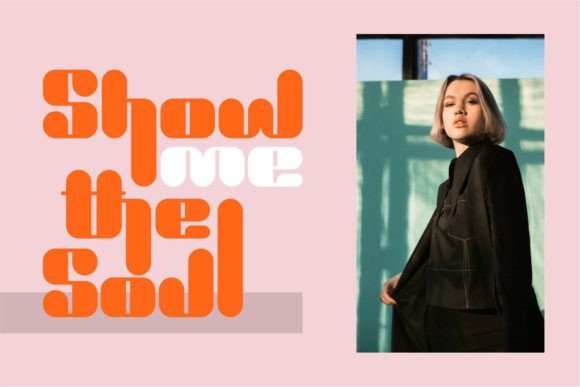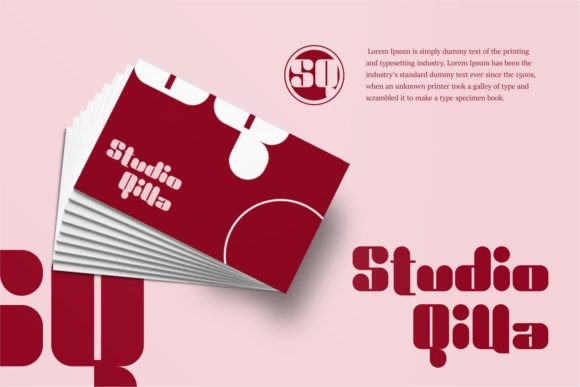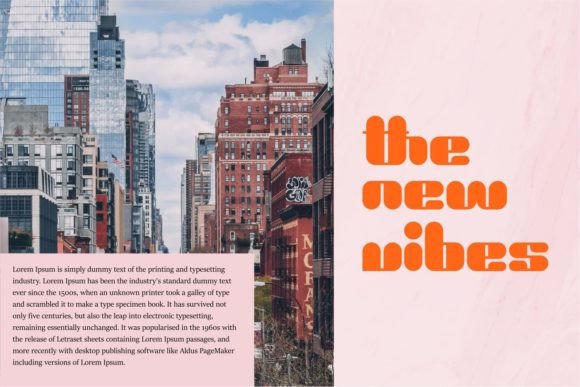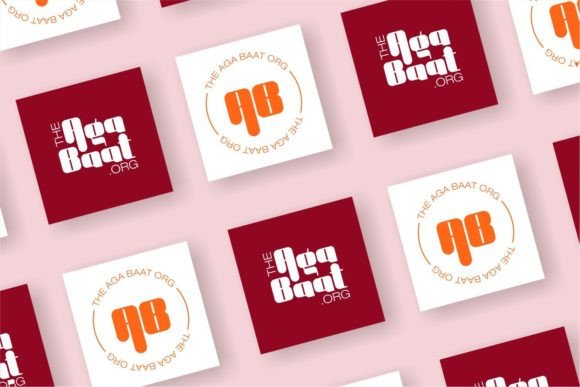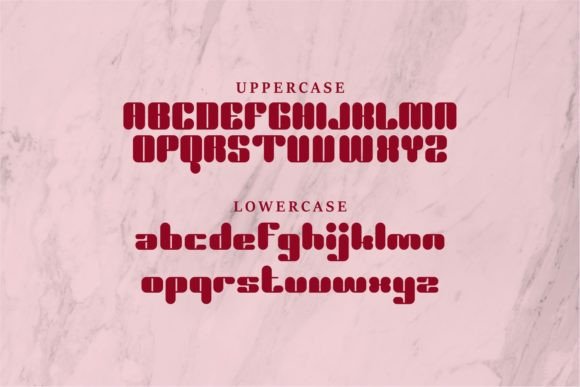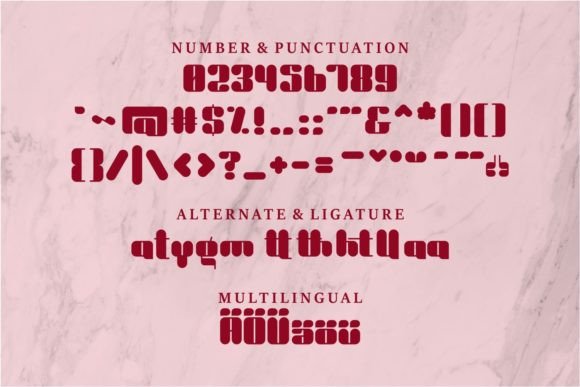
Unleash Your Creativity with Agatta Font
Have you ever stared at a blank canvas, struggling to find the perfect font to bring your design to life? The frustration is real, but what if I told you that there’s a game-changing solution? Introducing Agatta Font, a bold display font that’s about to become your new go-to companion for creating stunning visuals.
Agatta Font is designed to make a statement, with its unique feel and stunning impact guaranteed to elevate any project you take on. Whether you’re working on a logo, poster, or social media graphics, this font will add a touch of sophistication and style that’s sure to impress. As a designer, you know how valuable a great font can be in taking your work to the next level, and Agatta Font is no exception.
- Unique Characteristics: Agatta Font features a unique blend of modern and traditional design elements, making it suitable for a wide range of applications.
- Font Style: Agatta Font is available in multiple font styles, including Regular, Italic, Bold, and Bold Italic, allowing users to choose the style that best suits their needs.
Agatta Font Review
Overall, I was impressed with the Agatta Font. Here are a few things that really stand out:
- ✨ Unique, elegant design: Agatta has a distinctive style that’s both modern and sophisticated.
- ✨ Wide language support: I was able to test the font with multiple languages and found it to be well-supported.
- ✨ High-resolution glyphs: The font looks crisp and clear, even at high resolutions.
That being said, there are a few limitations:
- ⚠️ Limited weight options: While the font has a good selection of weights, it’s not as extensive as some other fonts I’ve worked with.
- ⚠️ Some characters may require additional formatting: I noticed that certain characters, like fractions, require additional formatting to display correctly.
Overall, I think the Agatta Font is a solid choice for designers looking for a unique, high-quality font. While it’s not perfect, its strengths outweigh its limitations, and I would definitely consider using it in future projects.
Getting the Most Out of Agatta Font
To get the most out of Agatta Font, use it for:
1. Creative titles and headings.
2. Branding and logos.
3. Digital signage and displays.
4. Print materials, such as business cards and brochures.
Agatta Font is ideal for:
1. Fashion and lifestyle brands.
2. Food and beverage companies.
3. Travel and tourism industries.
4. Creative and artistic projects.
Alternatives to Agatta Font for Designers
Open Sans is a popular sans-serif font that is highly legible and versatile. It is suitable for both print and digital designs, making it an excellent choice for body text, headlines, and titles. Open Sans is a more modern and clean font compared to Agatta Font, which has a more vintage feel. Open Sans is ideal for use in digital interfaces, web design, and mobile applications.
Lato is a modern sans-serif font that is highly legible and suitable for both print and digital designs. It has a clean and elegant feel, making it an excellent choice for body text, headlines, and titles. Lato is more geometric and modern compared to Agatta Font, which has a more organic feel. Lato is ideal for use in digital interfaces, web design, and branding materials.
Merriweather is a classic serif font that is highly legible and suitable for both print and digital designs. It has a traditional and elegant feel, making it an excellent choice for body text, headlines, and titles. Merriweather is more formal and traditional compared to Agatta Font, which has a more casual feel. Merriweather is ideal for use in print materials, such as books, magazines, and newspapers.